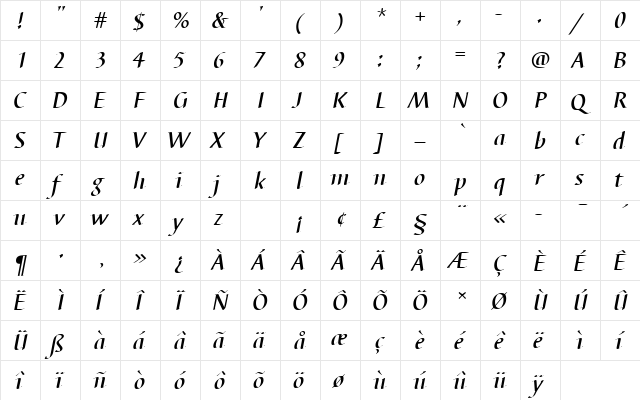
BarbedorTMedItaRo1 Regular
Design Context for BarbedorTMedItaRo1 Typeface
BarbedorTMedItaRo1 is a composed and adaptable typeface that performs quietly and consistently across a wide range of design contexts.